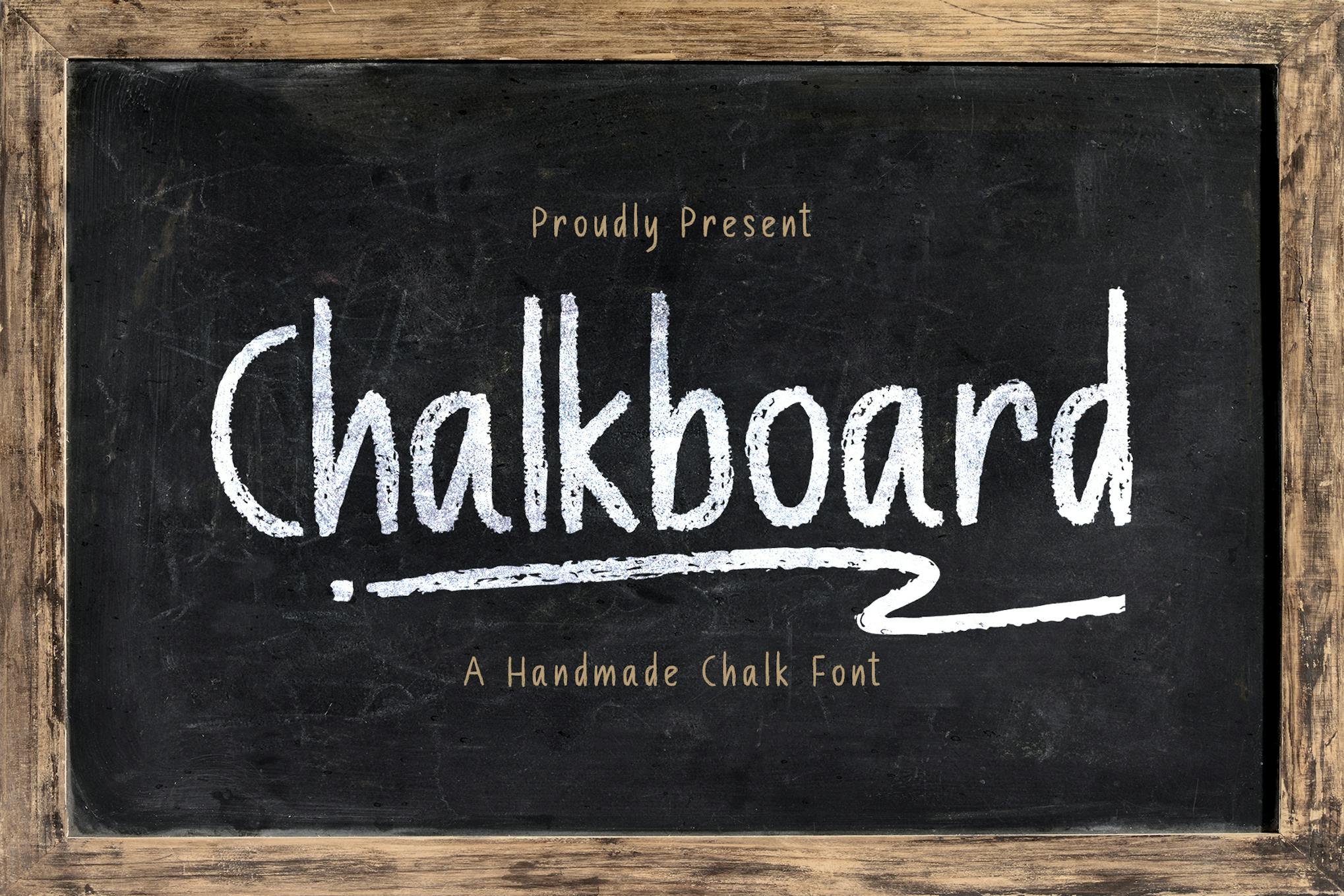
Chalk Board - A Handmade Chalk Font
Perfect for café menus, kids’ party invitations, school projects, chalkboard-style branding, packaging, and social media graphics.
The Chalk Board - A Handmade Chalk Font excites designers with its authentic, handcrafted chalk texture that brings nostalgic charm and playful energy to any design.
The Chalk Board - A Handmade Chalk Font Free Download is a delightful typeface designed to replicate the look and feel of genuine chalk writing. It’s ideal for projects seeking a casual, friendly vibe with a touch of nostalgia. Whether you’re designing café menus, school event flyers, or kids’ birthday invitations, Chalk Board adds warmth and character.
One of the standout features of Chalk Board - A Handmade Chalk Font is its textured, imperfect strokes that mimic the natural variance of chalk on blackboards. This makes your designs feel personal and approachable while maintaining readability and style.
In branding, Chalk Board conveys friendliness, creativity, and informality. It pairs beautifully with rustic backgrounds, pastel color palettes, and hand-drawn illustrations, perfect for artisanal cafes, creative studios, and educational materials.
For digital projects, this font enhances social media posts, website headers, and digital invitations with its playful chalkboard aesthetic. Its handcrafted style helps your content stand out with authenticity and charm in a sea of polished digital designs.